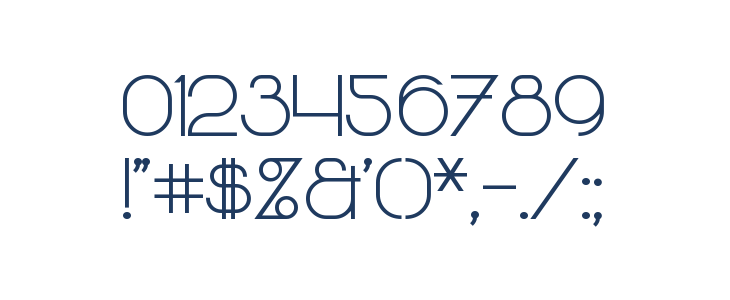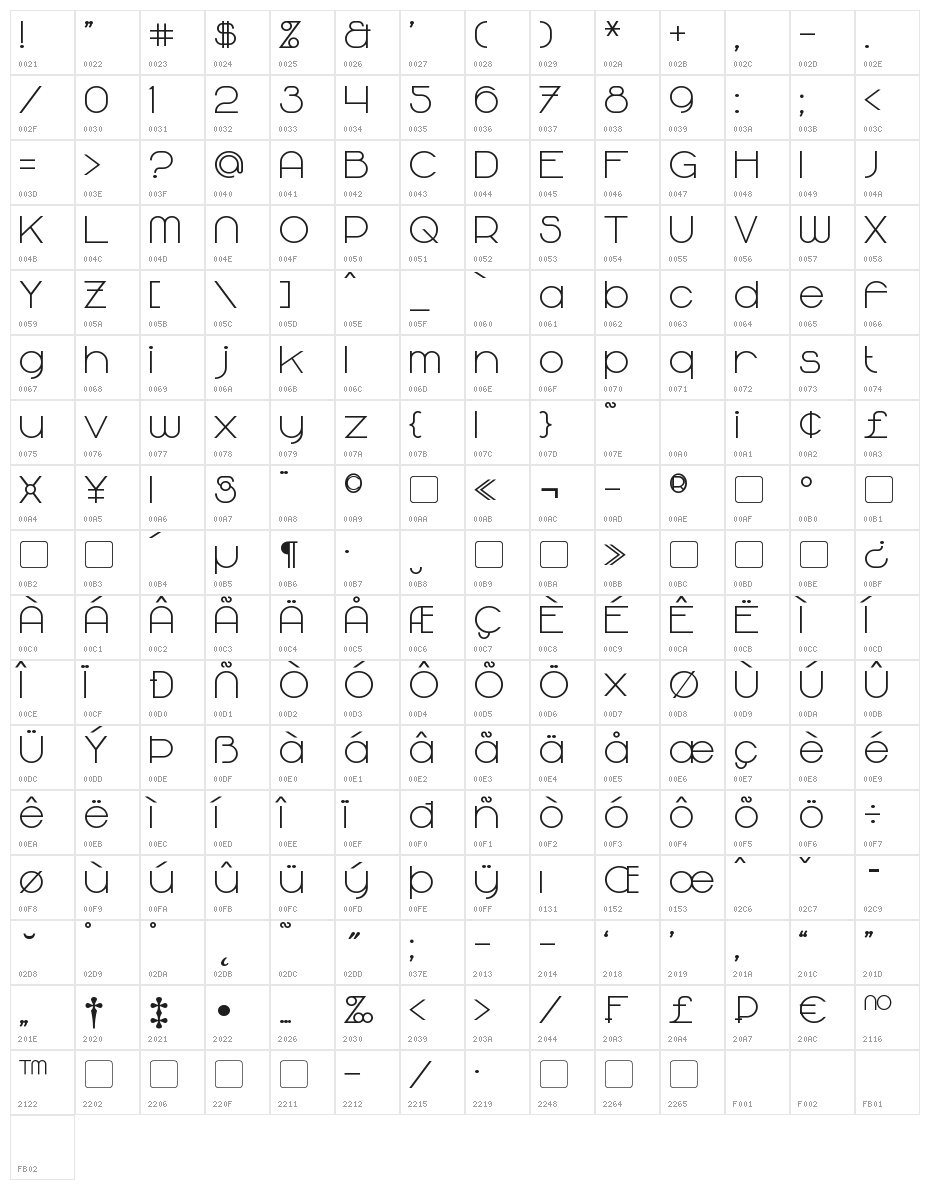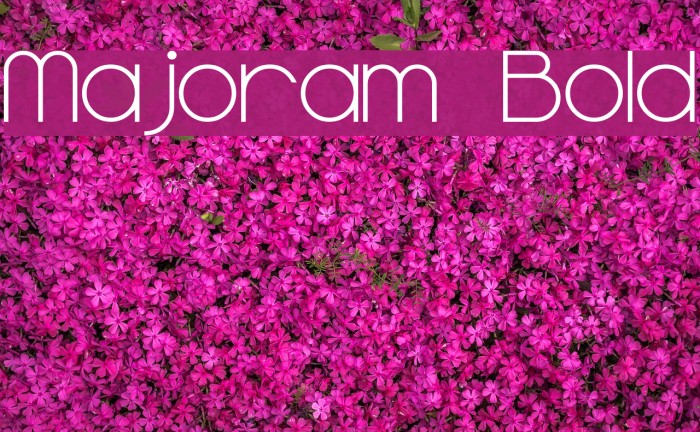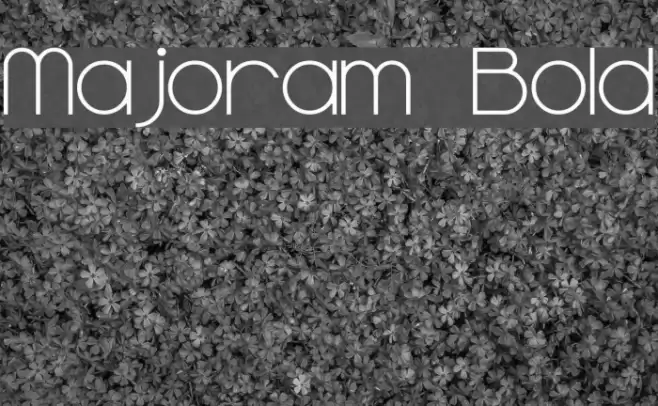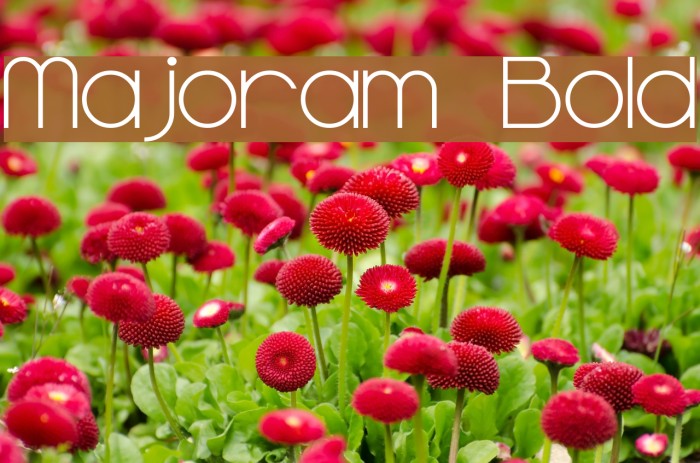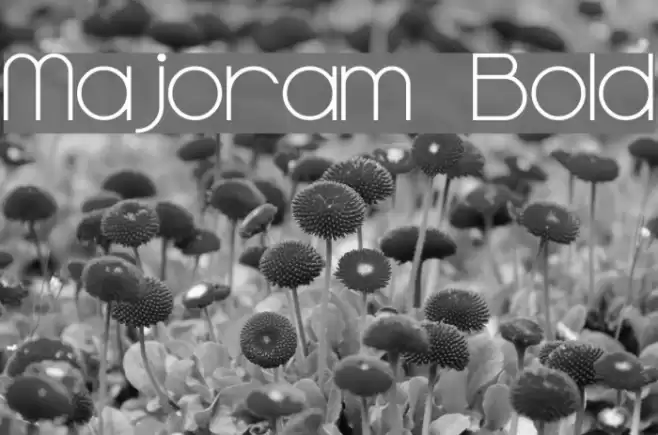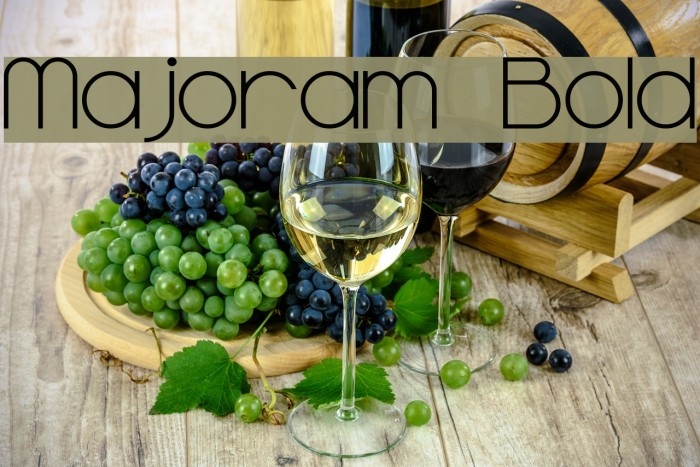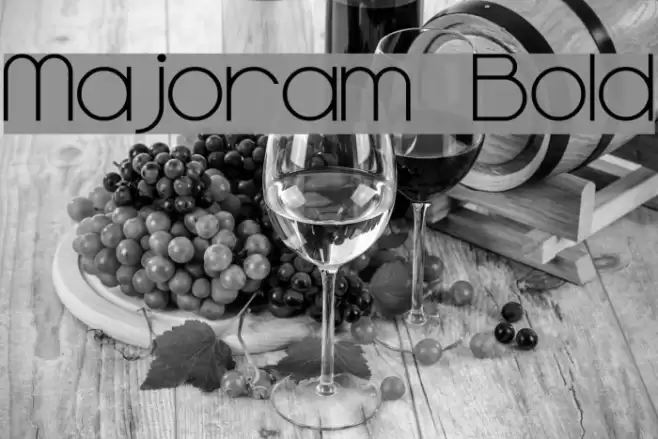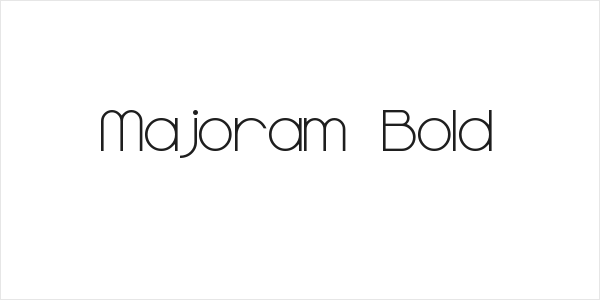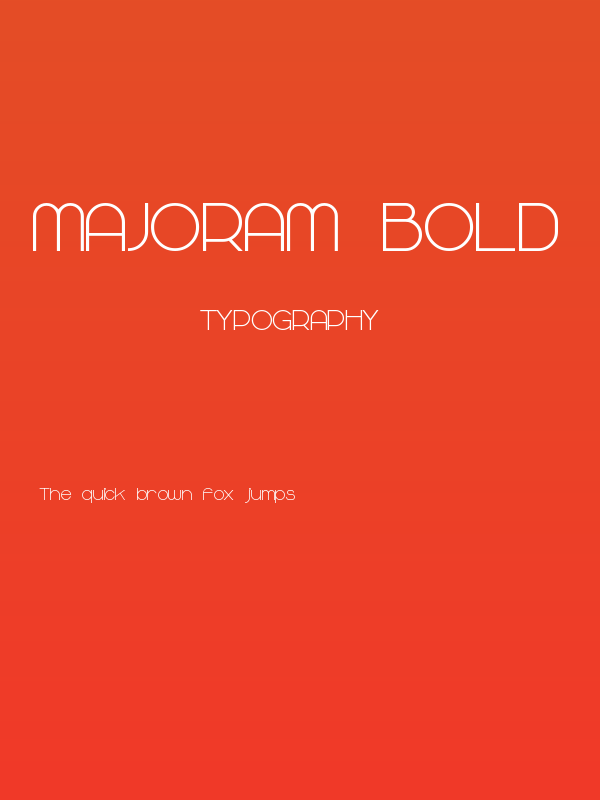
Majoram Bold Font
Majoram Bold Description
This font features a modern and geometric design with clean lines and a minimalist aesthetic. The characters are constructed with a consistent stroke width, giving it a uniform appearance. The uppercase letters are tall and narrow, while the lowercase letters maintain a similar height, creating a harmonious balance. The numerals are distinct and easily legible, matching the overall style of the alphabet. Special characters are designed with the same geometric precision, making them fit seamlessly with the rest of the font. This typeface is ideal for projects that require a contemporary and sleek look.